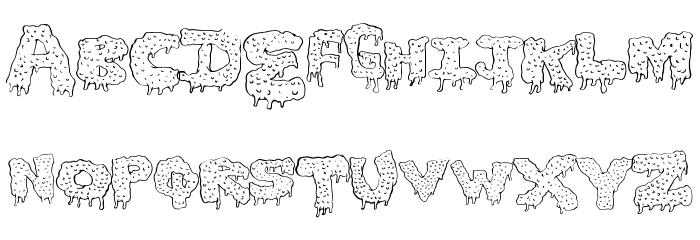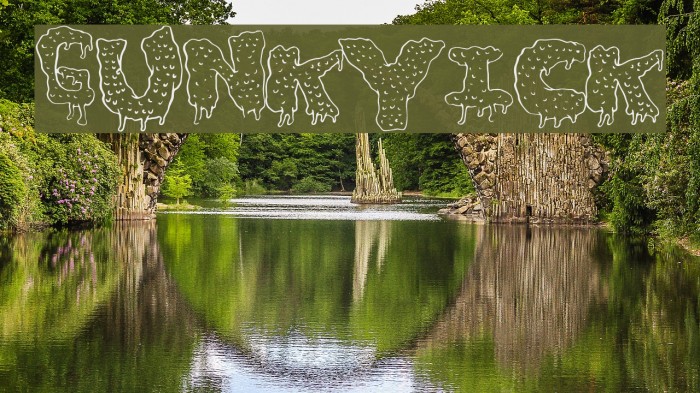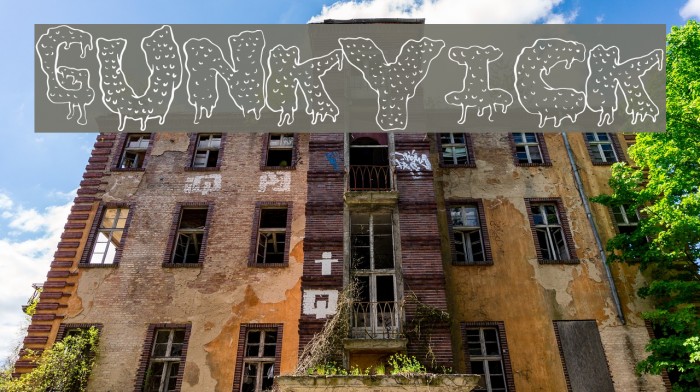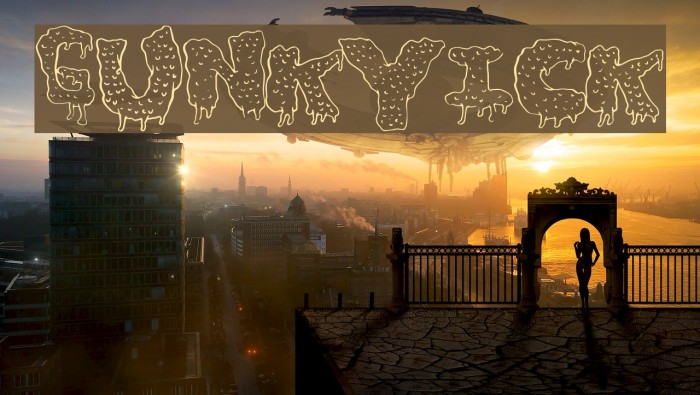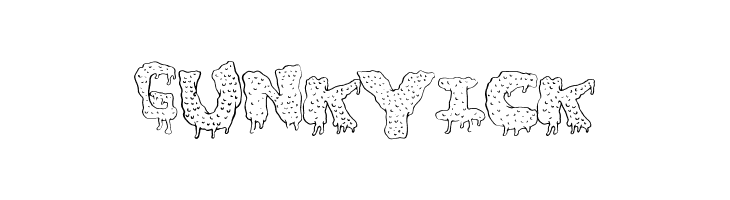
GunkyIck Font
This font features a playful and quirky design, with each letter appearing as if it is melting or dripping. The characters have a textured, gooey appearance, reminiscent of slime or dripping paint, which adds a unique and whimsical touch. The uppercase and lowercase letters maintain this consistent style, creating a cohesive look across the alphabet. The font's distinctiveness makes it stand out, making it ideal for creative and unconventional projects. Its decorative nature suggests it is best used in contexts where a fun and eye-catching aesthetic is desired.
A playful, dripping font with a gooey, textured appearance.
- Proposed Projects: Ideal for Halloween-themed designs, children's book covers, party invitations, or any project requiring a fun and quirky aesthetic.
- Use Case: Headlines, Posters, Creative Designs